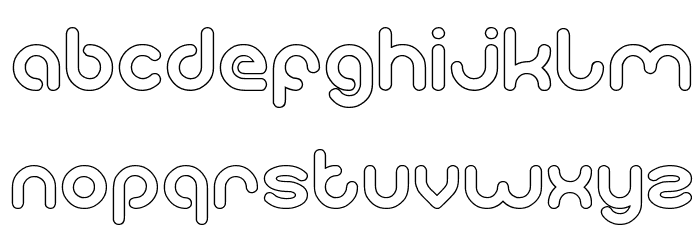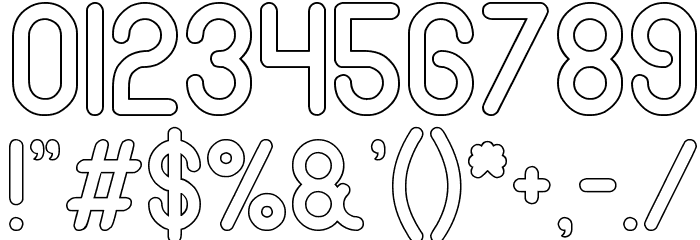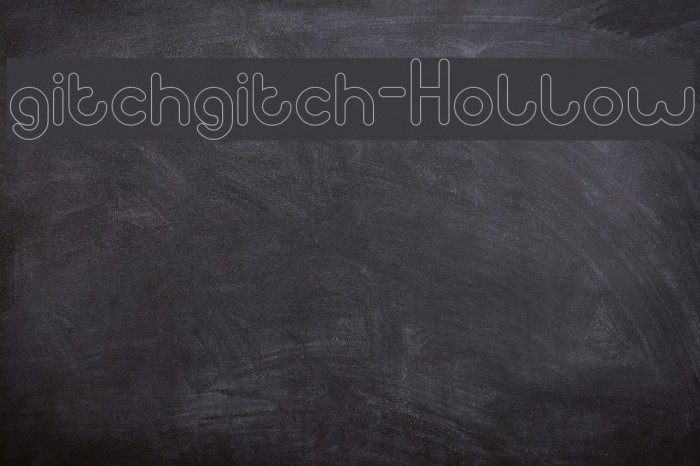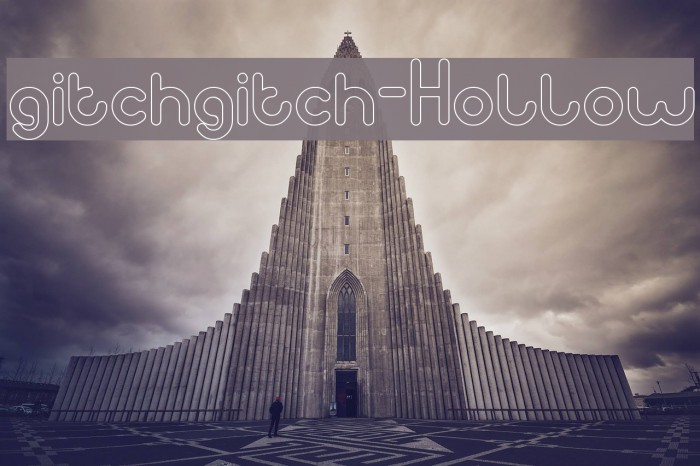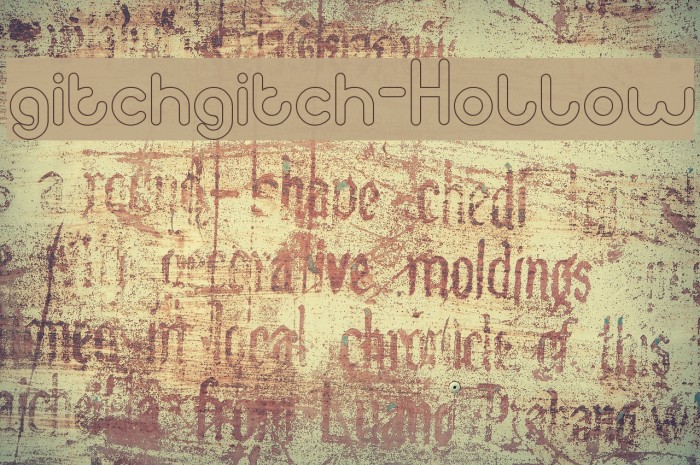
gitchgitch-Hollow Font
This font features a hollow, outlined style that gives it a modern and playful appearance. The characters are rounded and smooth, with consistent line thickness throughout. The uppercase and lowercase letters maintain a uniform height, contributing to a cohesive look. The numerals and special characters are designed to match the overall aesthetic, ensuring visual harmony across all elements. This font's open and airy design makes it suitable for projects that require a light and approachable feel.
A modern, hollow outlined font with rounded characters and consistent line thickness.
- Proposed Projects: Ideal for branding, posters, children's books, and playful design projects.